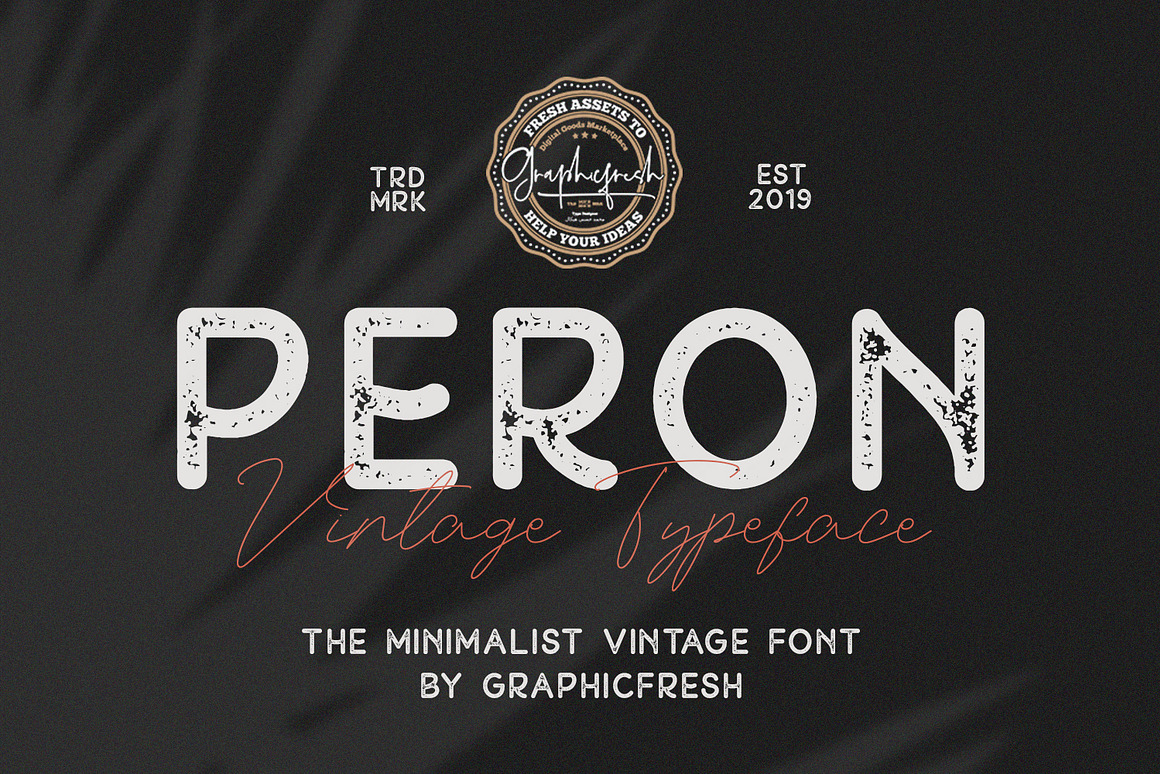
Peron - Modern Vintage | 4 Fonts
Peron - Modern Vintage | 4 Fonts is perfectly suited for retro brand identities, vintage poster designs, classic barbershop signage, artisanal product packaging, nostalgic advertising campaigns, heritage brand materials, craft brewery logos, antique shop branding, and authentic vintage-inspired marketing materials.
What makes Peron - Modern Vintage | 4 Fonts so exciting is its masterful blend of nostalgic charm and contemporary functionality that creates the perfect balance between historical authenticity and modern usability. This exceptional typeface collection captures the essence of classic mid-century design while incorporating contemporary refinements that ensure optimal performance across all modern applications. The font's carefully crafted letterforms evoke the golden age of advertising and design, featuring distinctive character shapes that transport viewers to an era of craftsmanship and attention to detail. Peron - Modern Vintage | 4 Fonts stands out through its ability to convey heritage, authenticity, and timeless quality, making it perfect for brands and projects that want to establish credibility through vintage aesthetics while maintaining relevance for contemporary audiences who appreciate classic design values.
The Peron - Modern Vintage | 4 Fonts family includes four distinct styles: Regular, Bold, Outline, and Shadow, each preserving the collection's vintage character while providing comprehensive design flexibility. This versatile family also features decorative elements, vintage ornaments, and period-appropriate alternates that enhance the authentic retro aesthetic and provide complete solutions for vintage-inspired design projects.
The technical excellence of Peron - Modern Vintage | 4 Fonts includes comprehensive character sets with uppercase and lowercase letters, numerals, punctuation marks, and vintage-inspired symbols that maintain period authenticity. The family has been optimized for both digital and print applications, ensuring consistent performance while preserving the intricate details that give it its distinctive vintage character and authentic appeal across all four styles.
Whether you're designing heritage brand identities, creating vintage marketing materials, developing retro packaging designs, or crafting projects that celebrate classic design aesthetics, Peron - Modern Vintage | 4 Fonts delivers the perfect combination of nostalgic authenticity and modern functionality that makes your designs resonate with audiences seeking genuine vintage character and timeless quality.